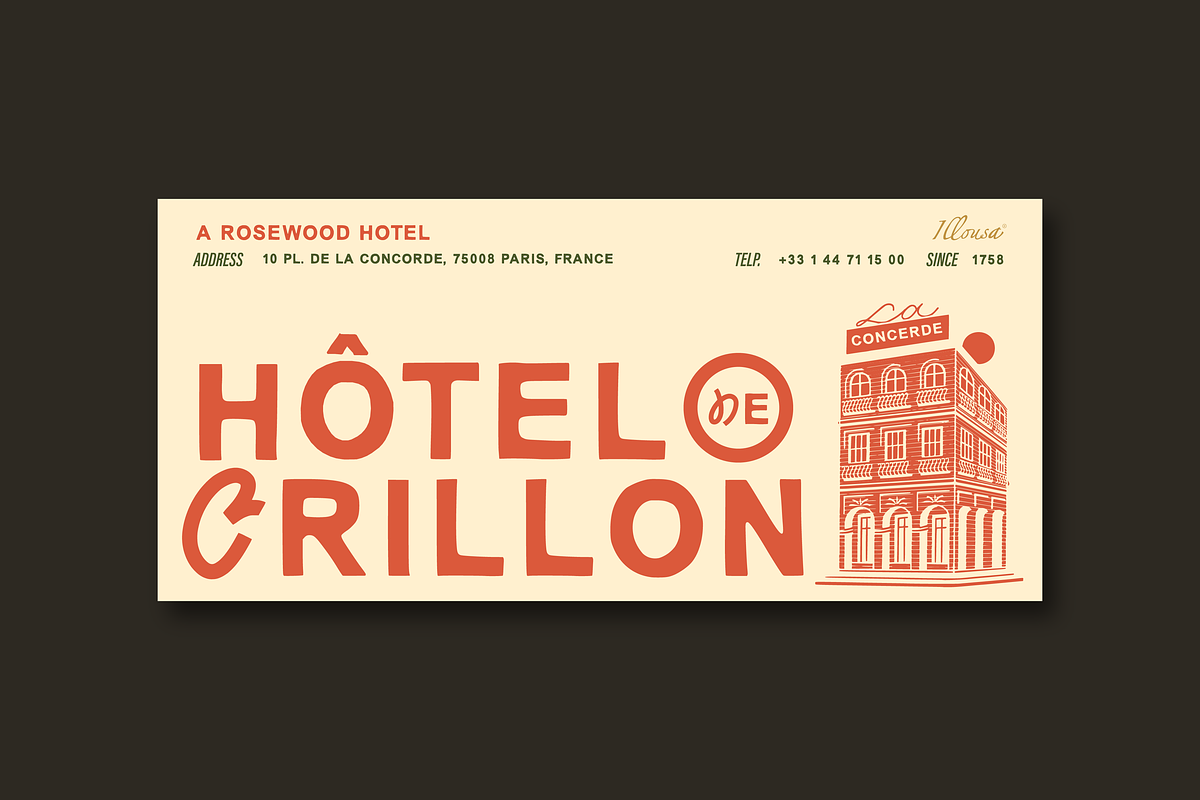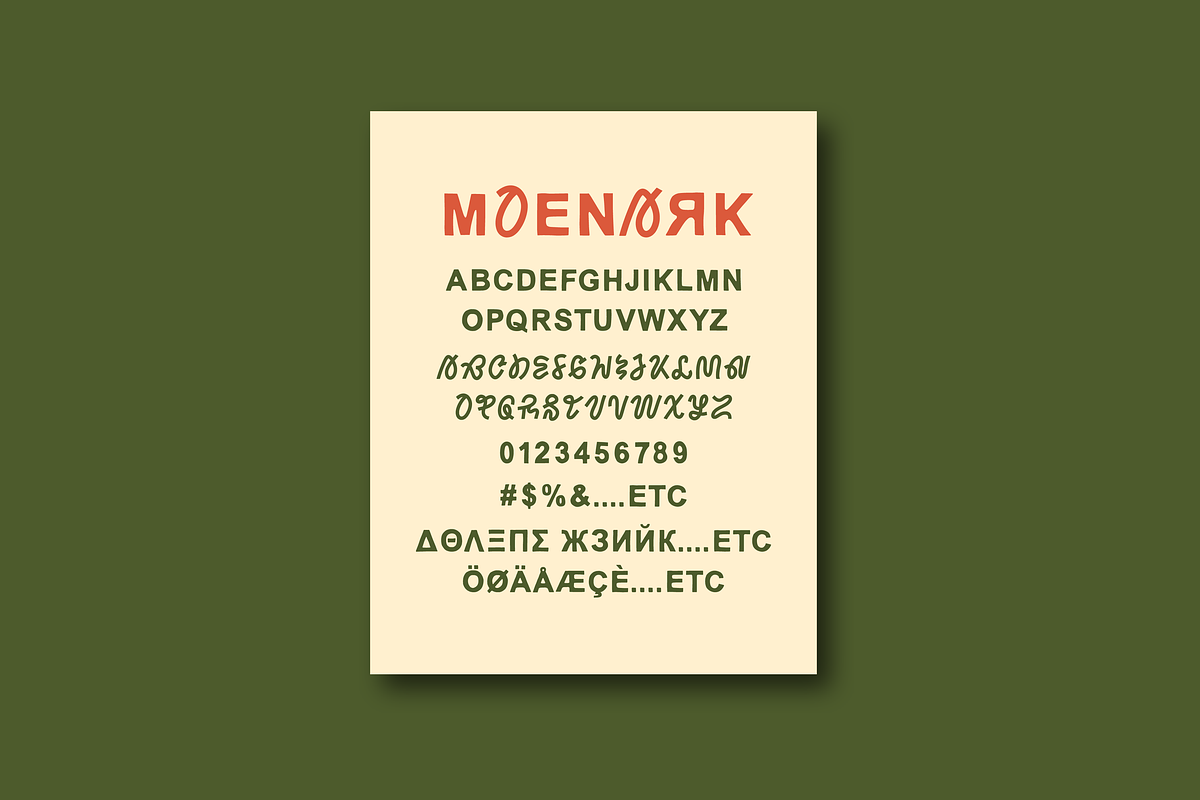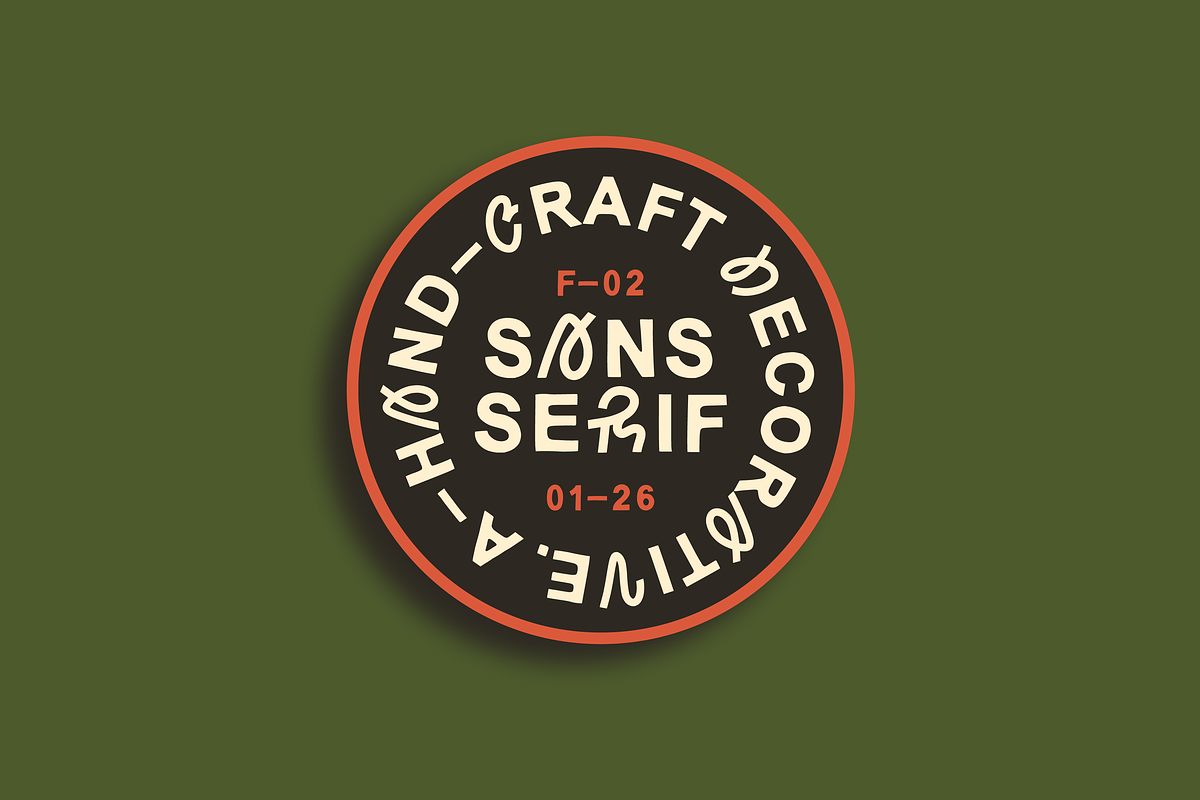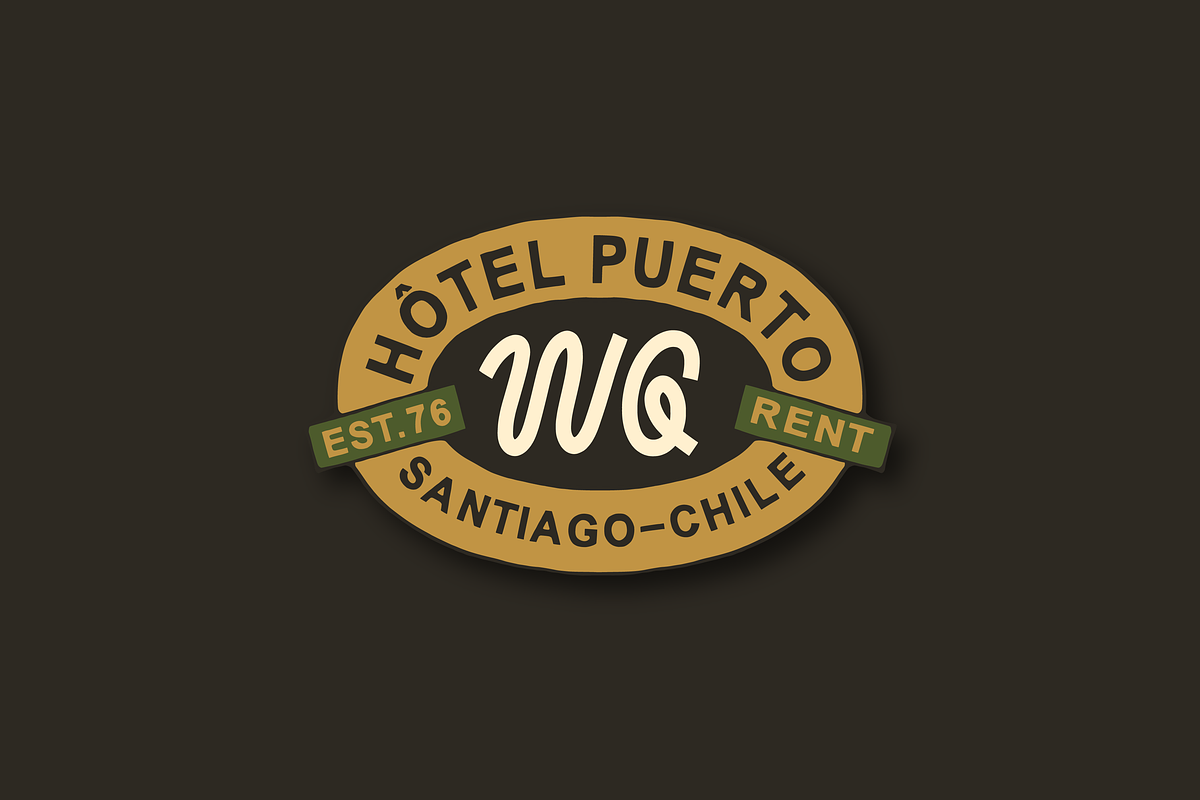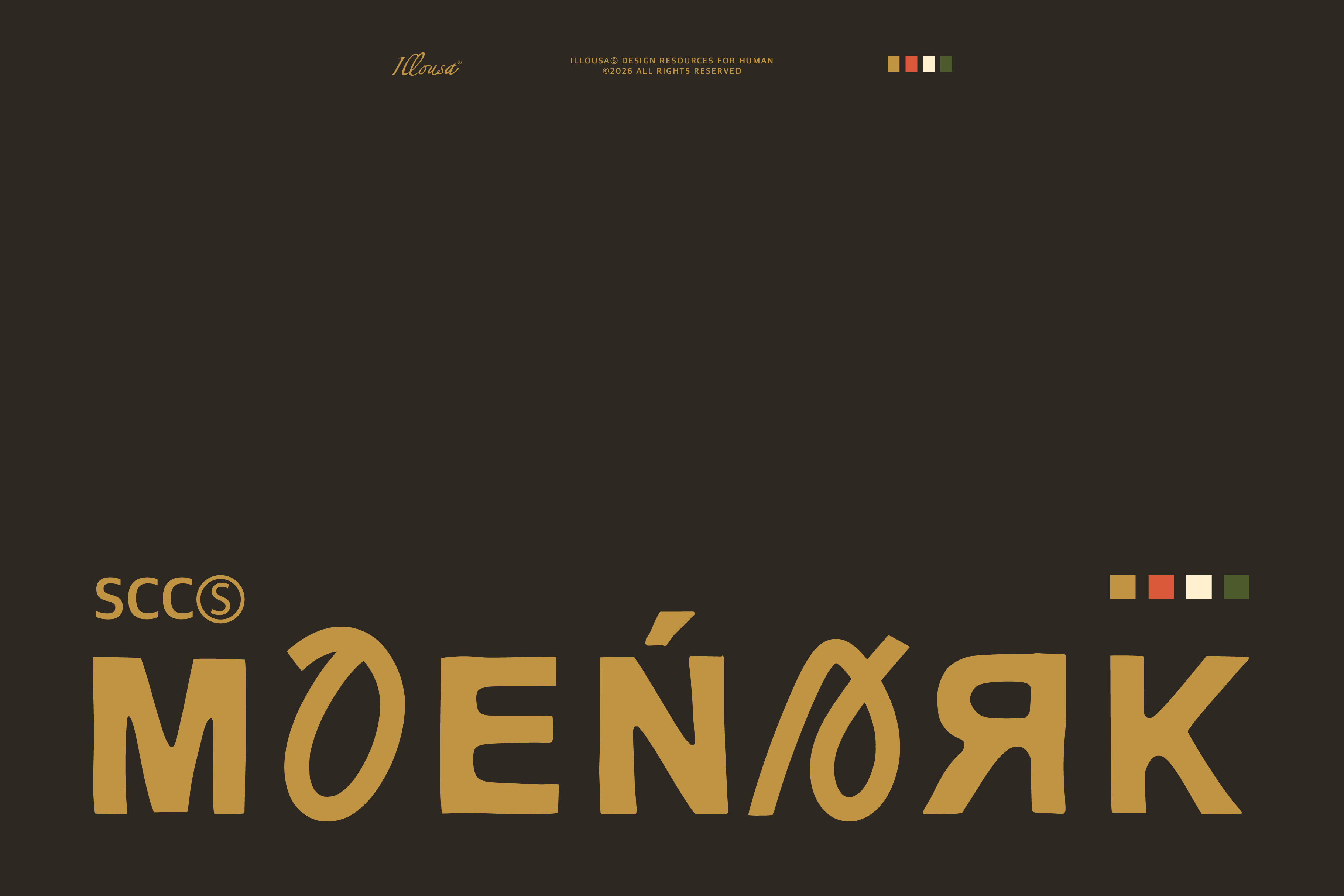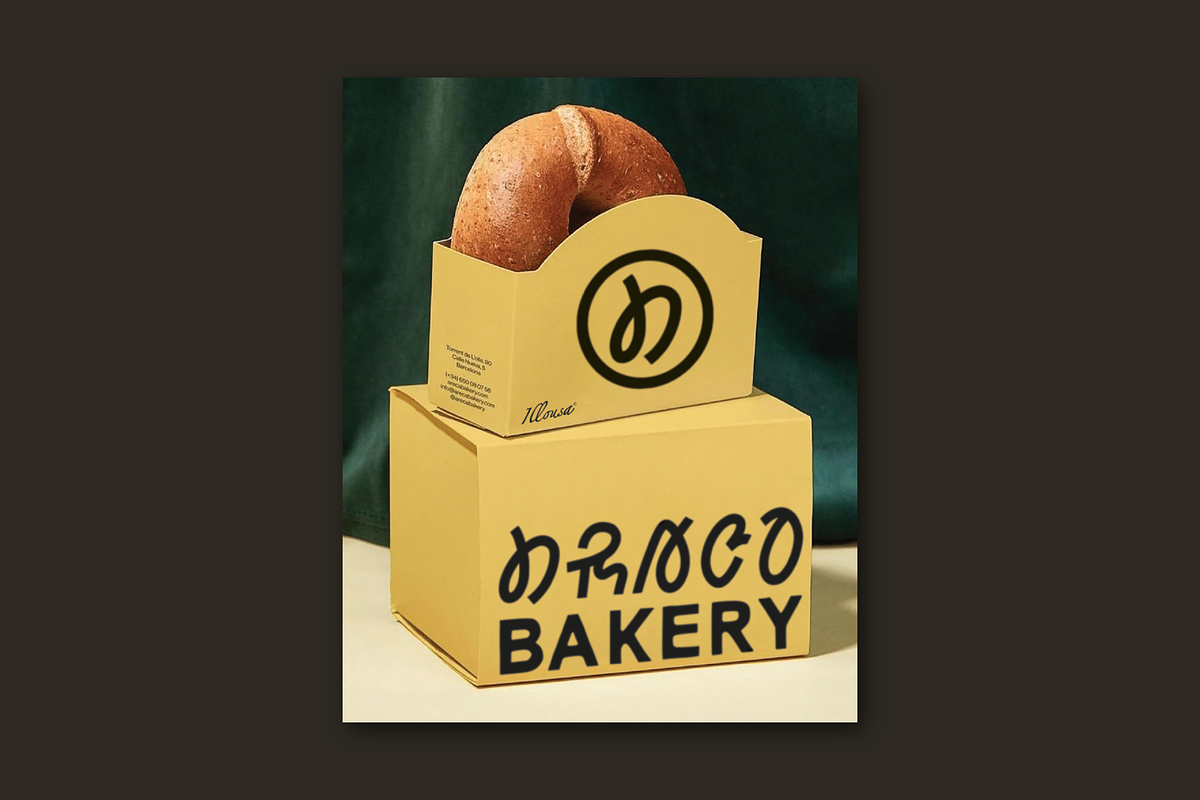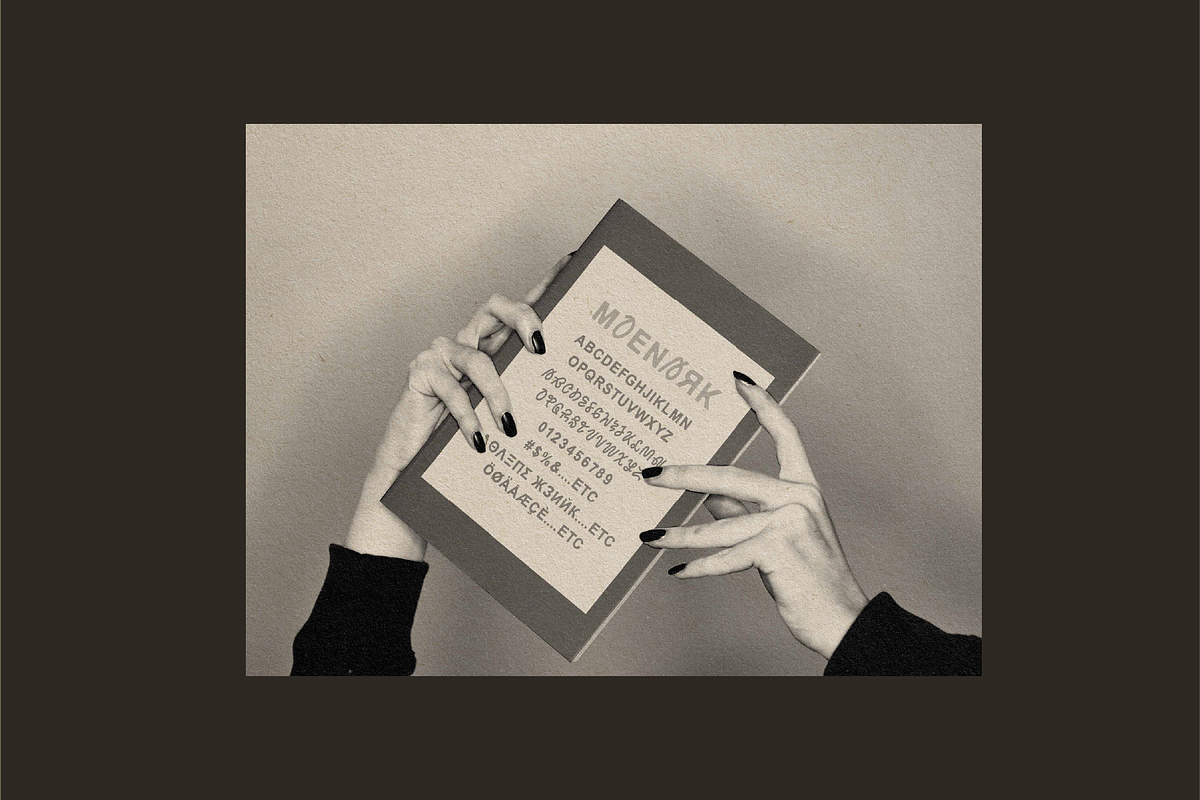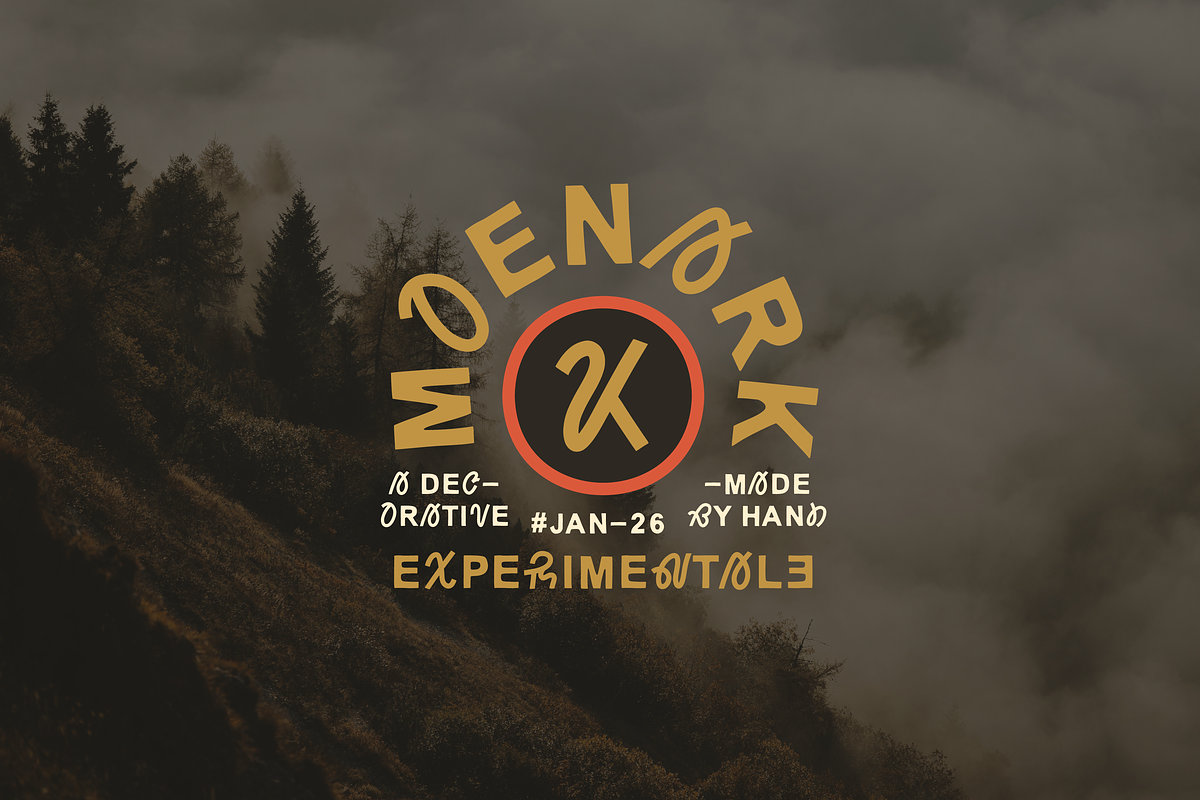
SCC Moenark | 2-in-1 Hybrid Font
INTRODUCTION | SCC - MOENARK / A DECORATIVE SANS - SERIF FONT / 2 IN 1 HYBRID DISPLAY FONT
Bring the perfect balance of artistic expression and modern simplicity to your designs.
SCC Moenark is a breakthrough hybrid font designed for creators who dare to stand out. This hand-drawn masterpiece uniquely combines bold, decorative uppercase characters with a clean, minimalist sans-serif lowercase, offering unparalleled versatility within a single font file.
Crafted with an organic touch, Moenark brings a "human feel" to digital designs—a leading trend for 2026. Whether you are building a luxury brand identity or an artistic editorial layout, this font adapts to your vision effortlessly.
Why SCC Moenark is a Must-Have:
- 2-in-1 Hybrid Utility: Switch between artistic decorative headers and readable sans-serif body text simply by toggling between uppercase and lowercase.
- Hand-Drawn Authenticity: Every stroke is meticulously crafted by hand to ensure a unique, non-digital aesthetic.
- Global Language Support: Supports 250+ languages, ensuring your designs can reach a global audience without missing a single character.
- 300+ Expertly Crafted Glyphs: Includes a wide array of alternates and symbols to give your typography a professional, custom-made look.
- Luxury Branding & Visual Identities
- Social Media Content & Aesthetic Quotes
- Product Packaging (Bakery, Cosmetics, Wine, Coffee)
- Wedding Invitations with a Modern Twist
- Website Headers & Editorial Layouts